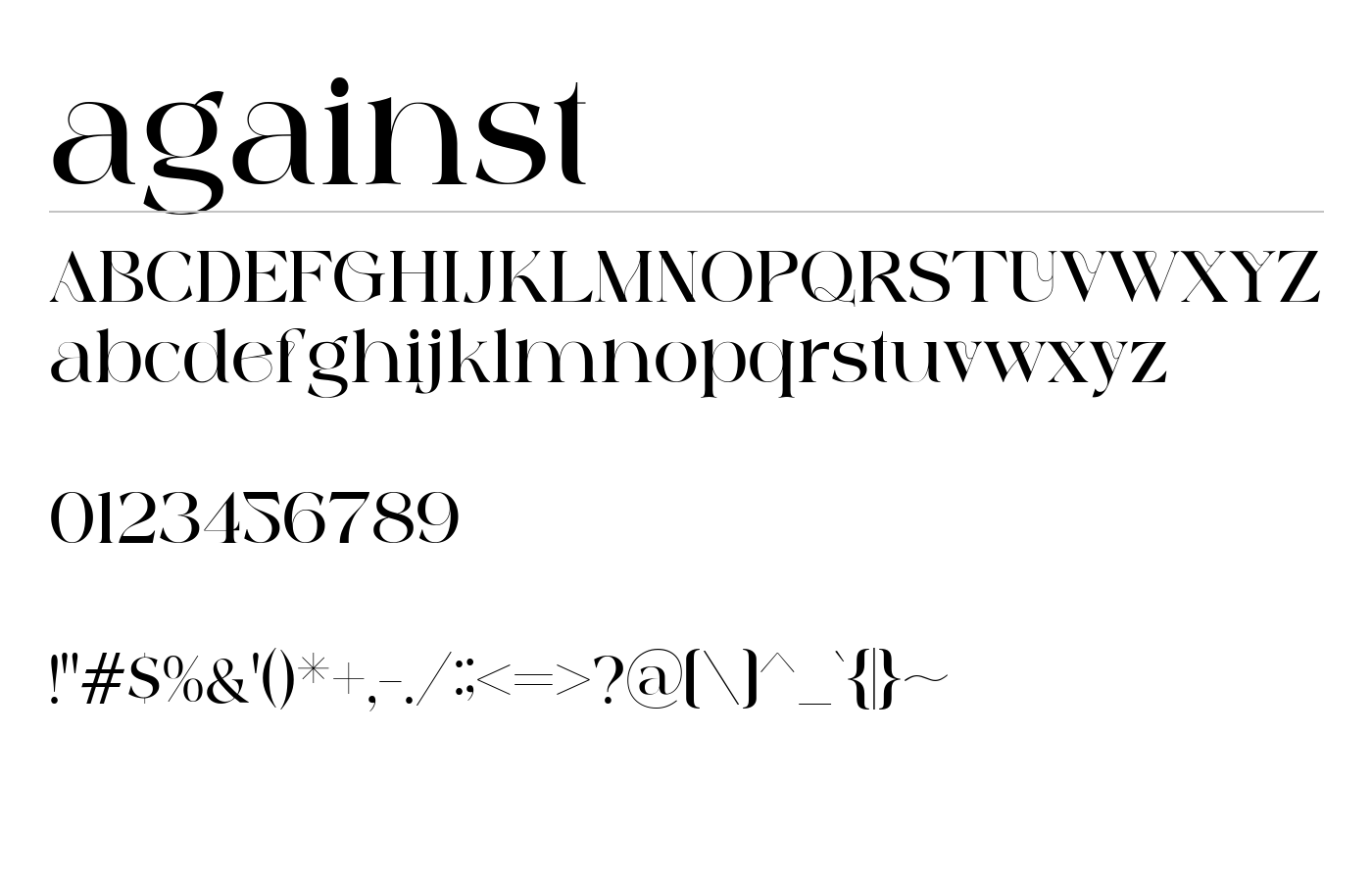
Against is a striking serif typeface with a modern Didone style, featuring high contrast between its thick and thin strokes and sharp, elegant serifs. Its unique details, such as the distinctive Q tail and the single-story g, lend it a sophisticated and artistic personality, making it perfect for upscale branding, editorial headlines, and fashion-focused designs. This font balances a graceful, luxury feel with strong readability, ideal for commanding attention in stylish and contemporary contexts.
against Font
About against Font
| Font family | against Font |
| Designer | 177Studio.com |